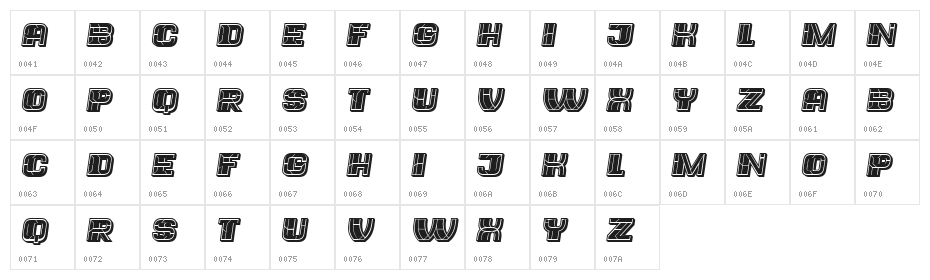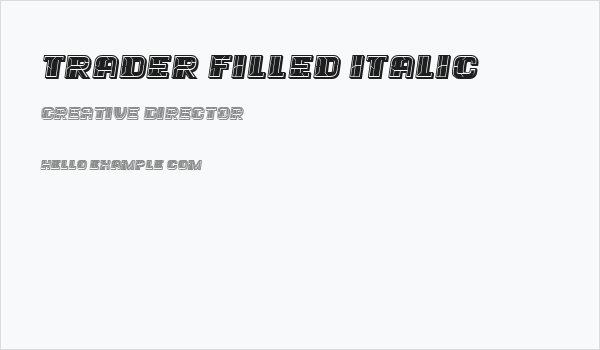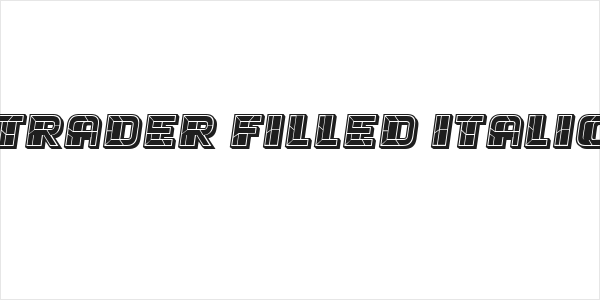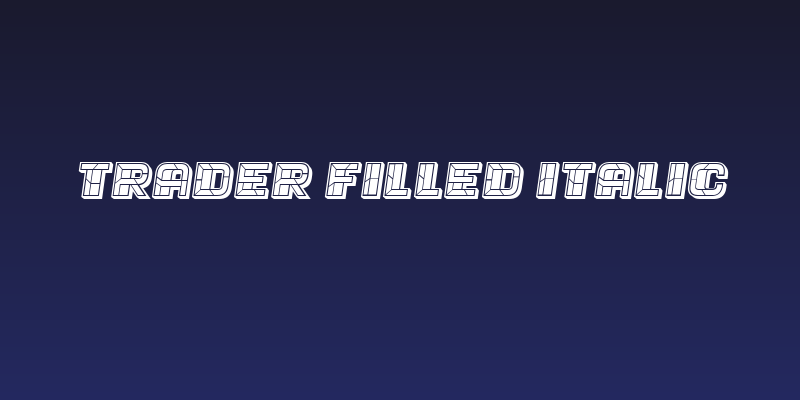
Trader Filled Italic Font
Trader Filled Italic Description
This font features a bold, italicized style with a filled, layered appearance that gives it a three-dimensional effect. The characters are uppercase, with a distinct geometric structure that emphasizes strong lines and angles. The design incorporates a double outline, creating a dynamic and impactful visual presence. The font's style is reminiscent of retro and futuristic aesthetics, making it suitable for projects that require a bold and eye-catching display. Its unique structure and filled design make it stand out, offering a sense of movement and energy.
| Overall Style | Modern, Retro |
| Proposed Projects | Ideal for posters, logos, headlines, and branding materials that require a striking and dynamic look. |